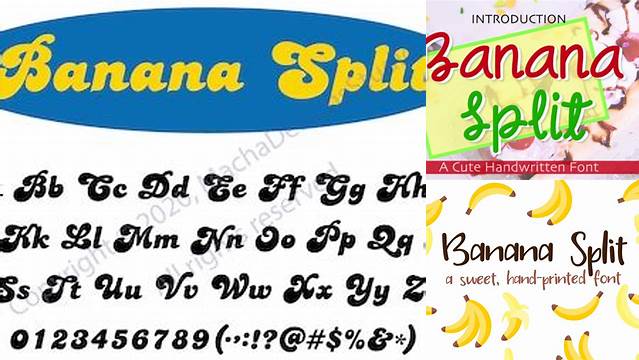
Free Banana Split Font Download: Sweeten Your Designs!
Hey guys! Are you ready to add a delicious touch to your design projects? If you're nodding your head, then you've come to the right place! Today, we're diving into the world of the Banana Split font, a typeface that's as fun and playful as its namesake dessert. This font is a fantastic choice for anyone looking to inject some personality and whimsy into their work. Whether you're designing a party invitation, creating eye-catching social media graphics, or even sprucing up your website, the Banana Split font can be your secret ingredient to success. So, grab a virtual spoon, and let's get scooping!
What is the Banana Split Font?
First things first, let's talk about what exactly the Banana Split font is. This font family typically embodies a playful and slightly retro aesthetic. Think hand-drawn lettering with a touch of vintage charm. It often features rounded edges, slightly irregular lines, and a generally friendly vibe. The fonts that fall under the Banana Split category are perfect for projects that need a lighthearted and approachable feel. From children's books to food-related branding, the versatility of this font shines through. When you’re searching for that perfect font to capture a sense of fun and nostalgia, the Banana Split font should definitely be on your radar.
Key Characteristics of the Banana Split Font
So, what are the specific traits that make a font a true Banana Split? There are a few key characteristics to look out for. The hand-drawn feel is paramount. You’ll often see slight imperfections and variations in the letterforms, which contribute to its unique charm. Rounded edges are another common feature, lending a soft and approachable quality. The overall style is generally casual and playful, making it ideal for informal designs. Additionally, many Banana Split fonts have a vintage or retro vibe, reminiscent of classic advertising and signage. Understanding these characteristics will help you identify the perfect Banana Split font for your project and ensure it fits the overall aesthetic you're aiming for.
Popular Uses for the Banana Split Font
Now that we know what the Banana Split font is, let's explore where it can truly shine. This font is incredibly versatile, but it's particularly well-suited for certain types of projects. Think about birthday party invitations, where its playful nature can set the tone for a fun celebration. It's also a great choice for children's books and educational materials, adding a touch of whimsy to learning. Food-related branding, especially for ice cream parlors, cafes, and bakeries, is another natural fit. Imagine a menu board or logo featuring this delightful font – instantly inviting! Beyond these, the Banana Split font can also be used in social media graphics, posters, and even website headers to create a friendly and engaging visual experience. The key is to leverage its playful and retro aesthetic to create designs that stand out.
Conclusion: Sweeten Your Designs with Banana Split Fonts
So, there you have it, guys! A complete guide to Banana Split fonts, from what they are to where to find them and how to use them effectively. These fonts are a fantastic way to add a touch of fun, whimsy, and retro charm to your designs. Whether you're working on a birthday invitation, a food-related brand, or a social media campaign, the Banana Split font can help you create visuals that are as delightful as the dessert that inspired it. Remember to download safely from reputable sources, check the font licenses, and pair it wisely with other fonts. And most importantly, have fun with it! Let your creativity flow and sweeten your designs with the playful personality of the Banana Split font. Happy designing!